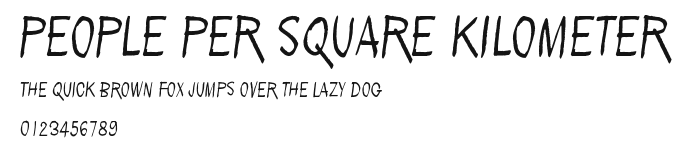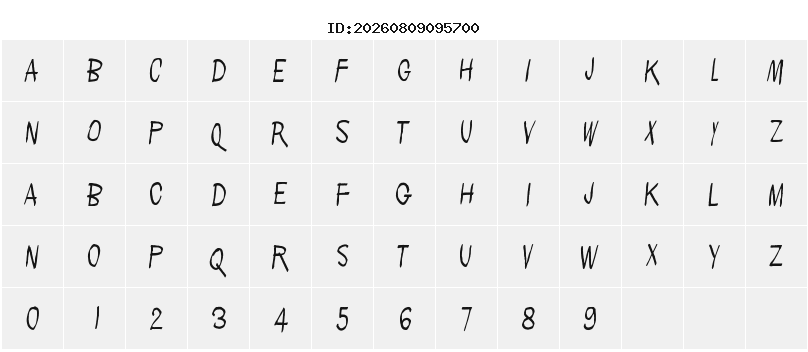
• Font Name: People per square kilometer
About People per square kilometer.ttf
People per square kilometer.ttf is a modern, elegant sans-serif font designed for ultimate readability and visual harmony. Perfect for branding, headlines, web design, and print materials.